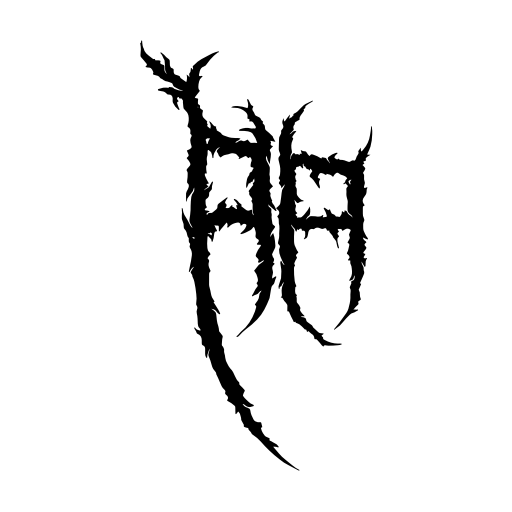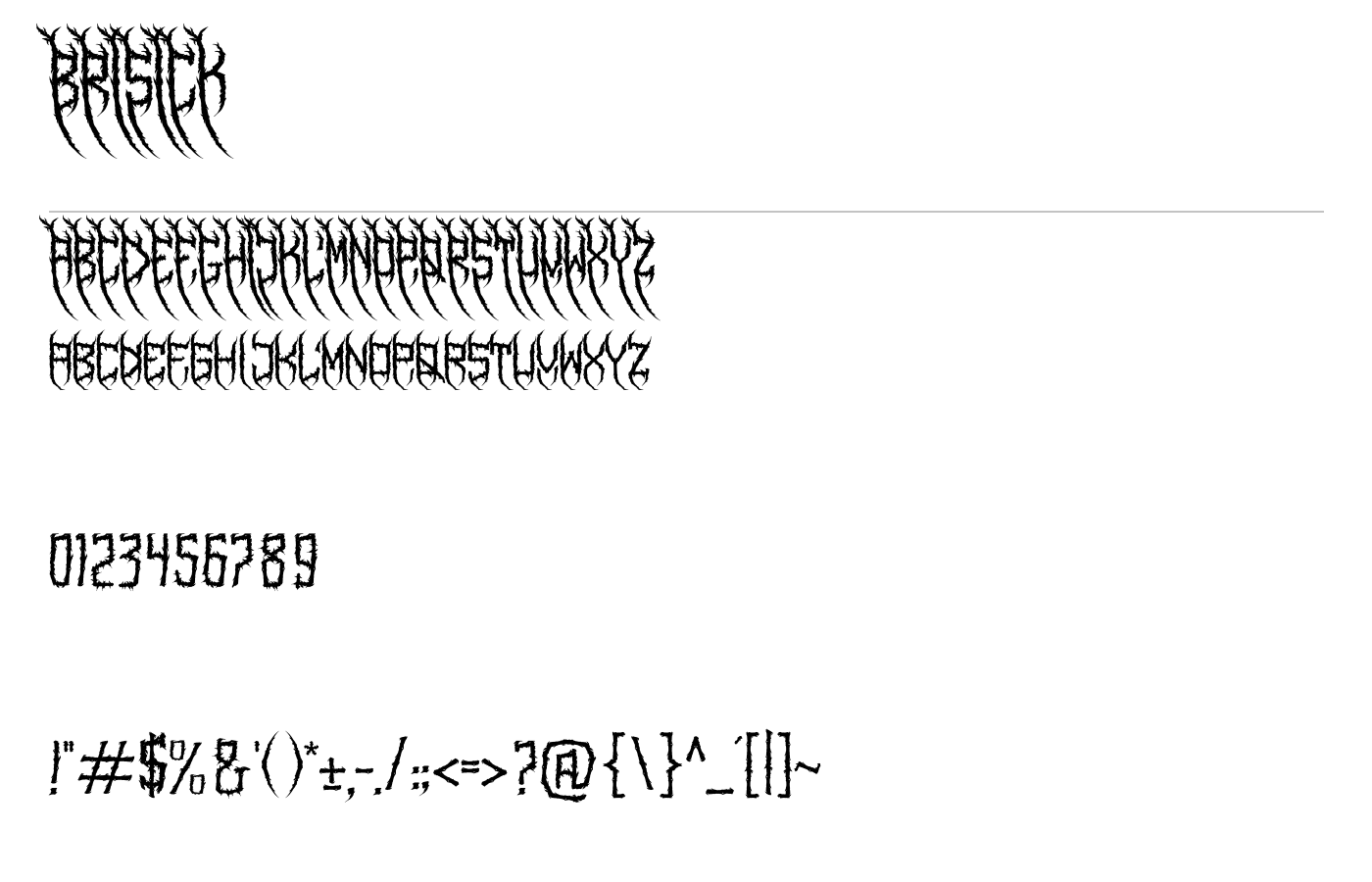
BRISICK is an edgy, decorative sans serif font with a narrow, tall stance and sharp, thorn-like strokes that create a striking, aggressive appearance. Its high contrast and jagged edges give it a dark, intense vibe well suited for horror-themed branding, metal music logos, or any design needing a bold, rebellious impact. This font stands out best in headlines and display use where its unique style can command attention and convey strong, dramatic moods.
BRISICK Font